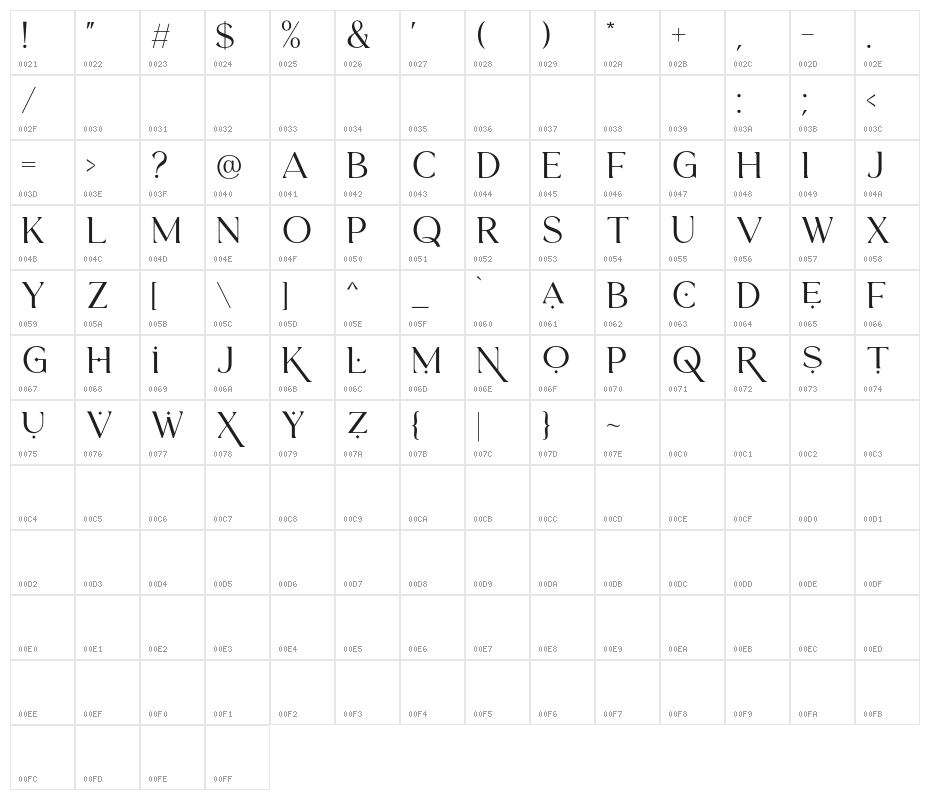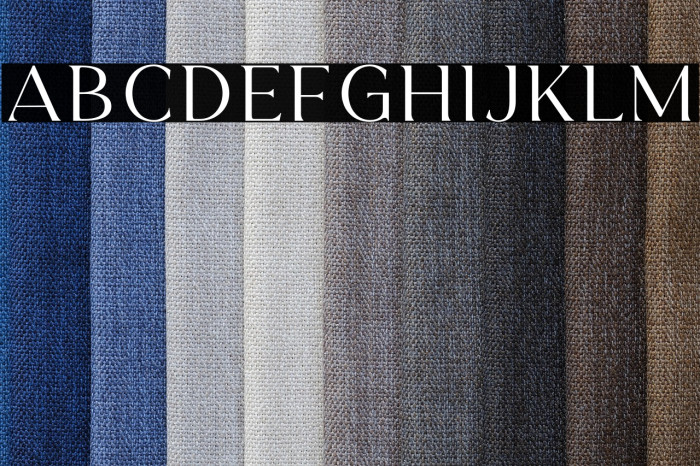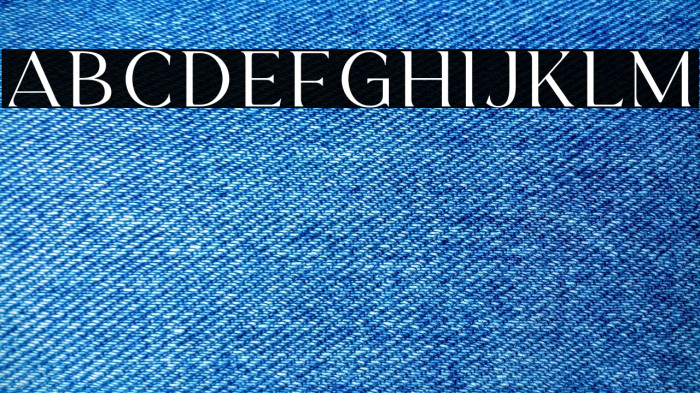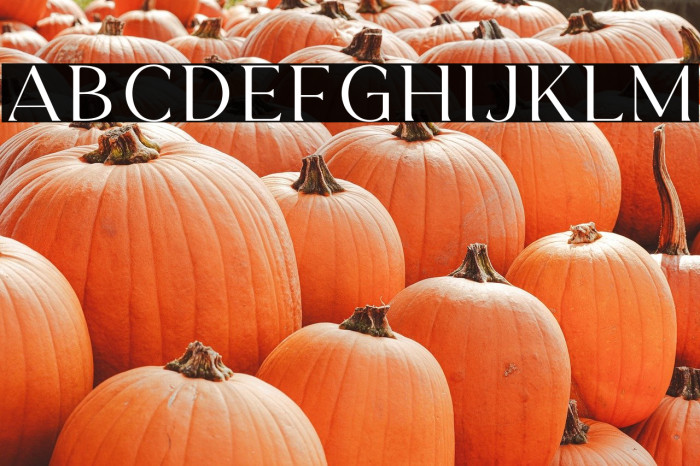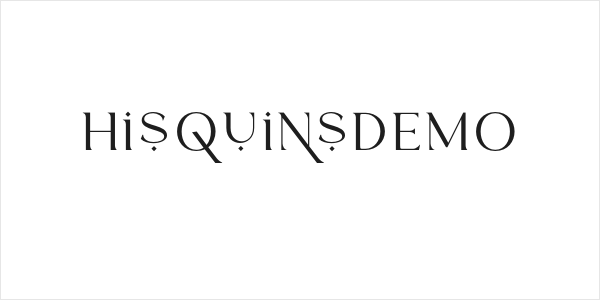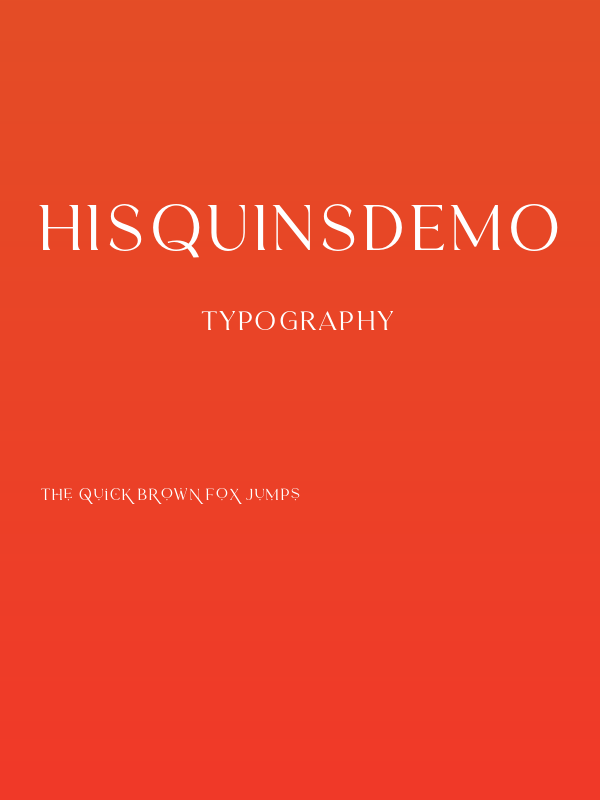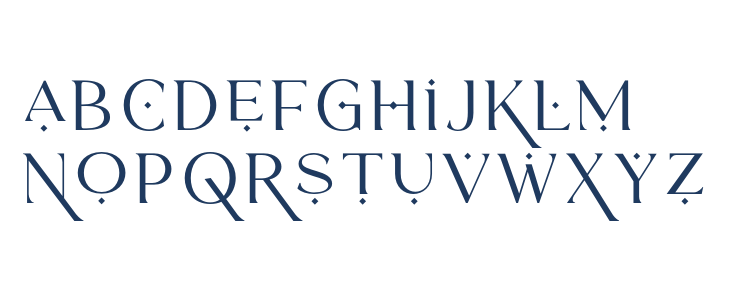
HisquinsDEMO Font
HisquinsDEMO Description
This font features a unique and modern design with a decorative flair. The uppercase letters are characterized by sharp, angular lines and subtle geometric elements that add a distinctive touch. The lowercase letters maintain a consistent style, with a slightly more rounded appearance. The numerals and special characters follow the same design principles, ensuring a cohesive look across all glyphs. This font's high contrast between thick and thin strokes enhances its visual impact, making it suitable for eye-catching designs.